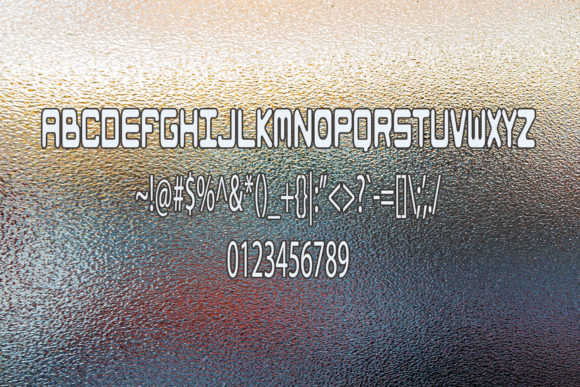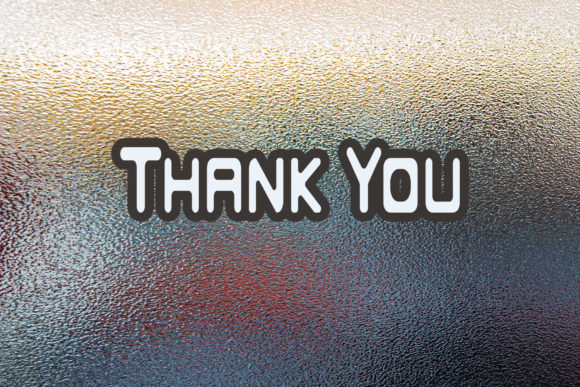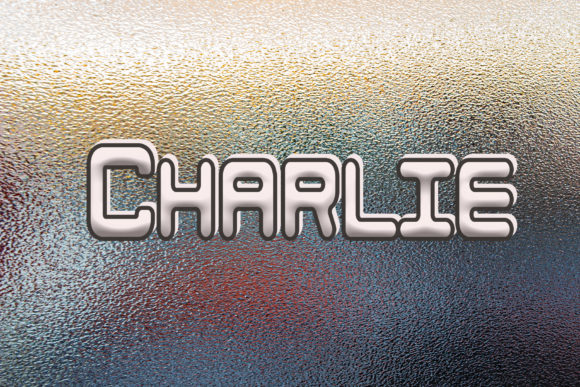
Personal Use Free Charlie 0 123 FacebookTwitterPinterestWhatsApp 1 of 3 About Charlie Font Charlie is a simple and bold display font. It is suitable for any branding, product packaging, invitation, quote, t-shirt, label, poster, logo that you wish to develop. DOWNLOAD NOW